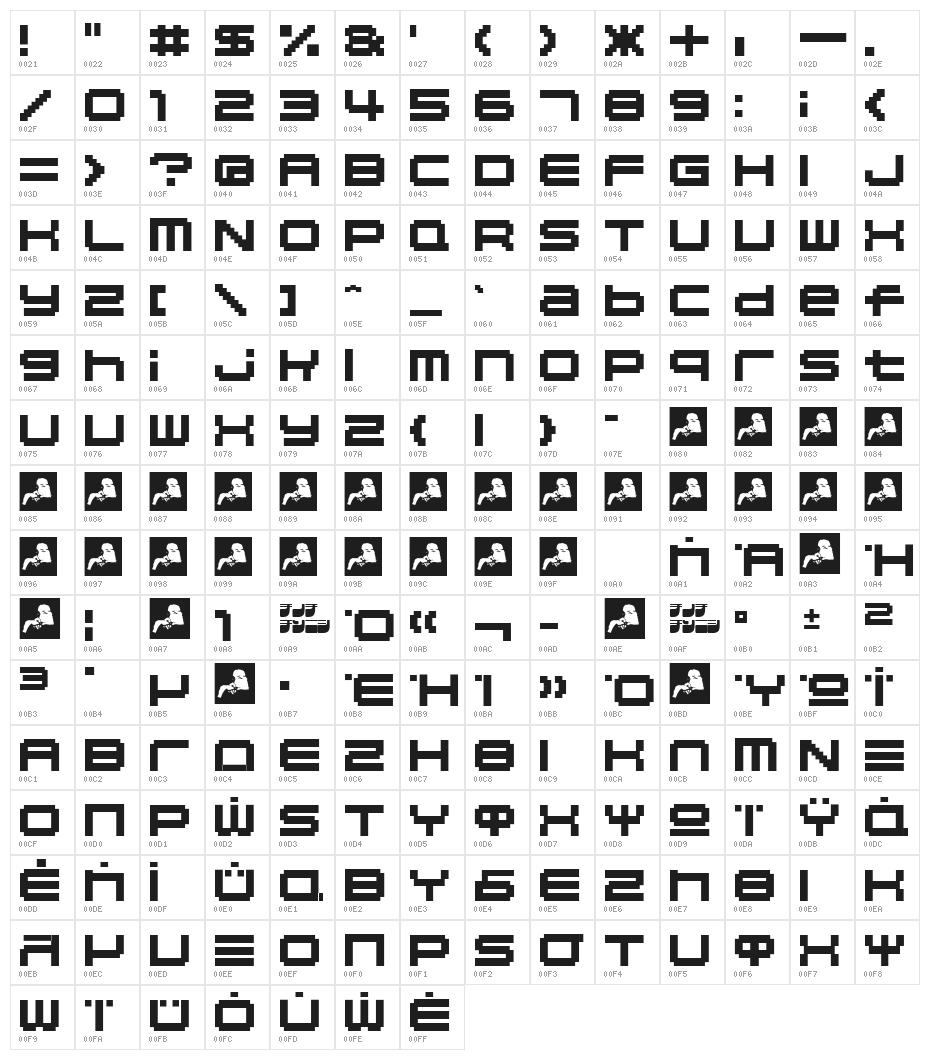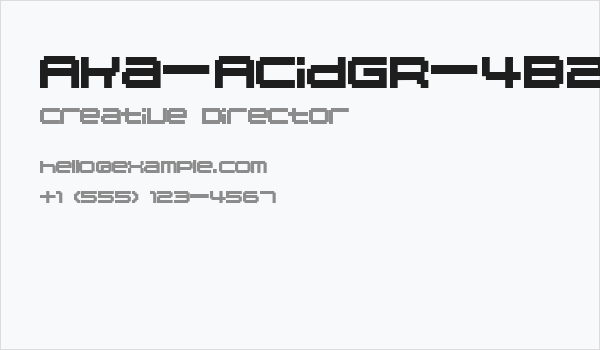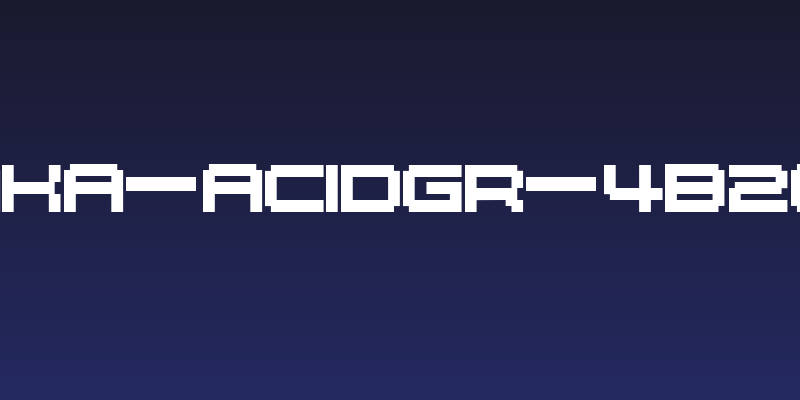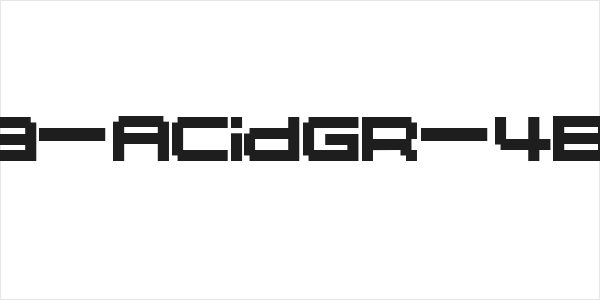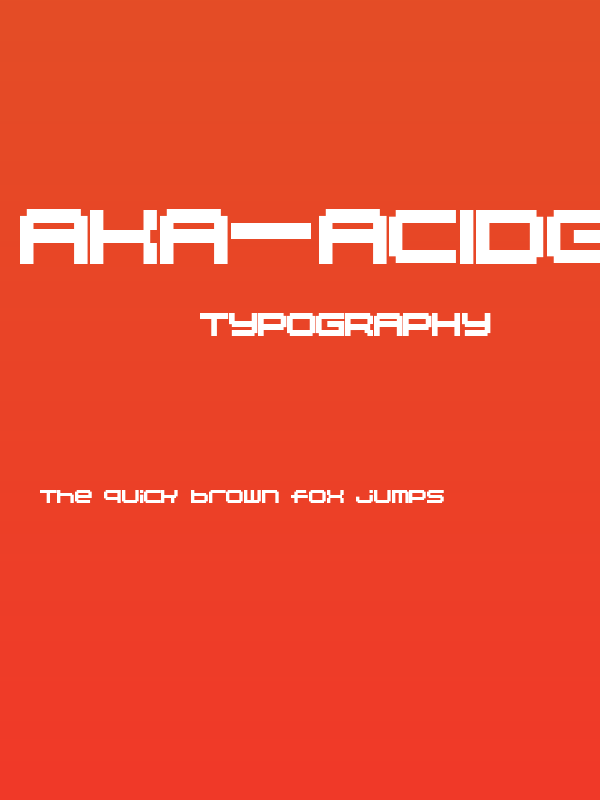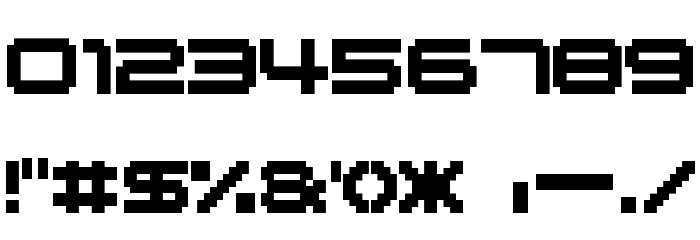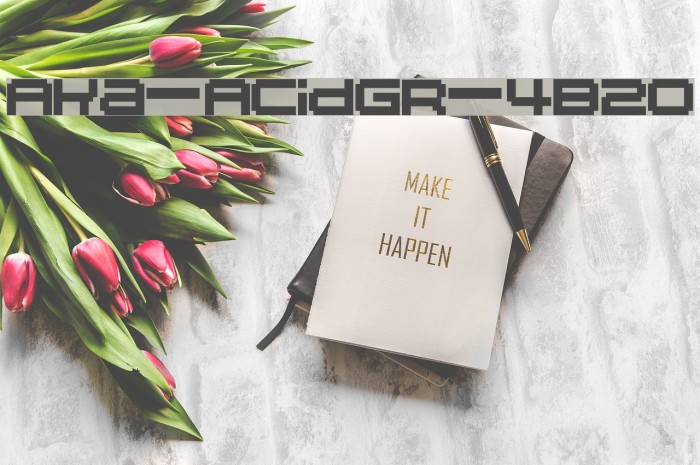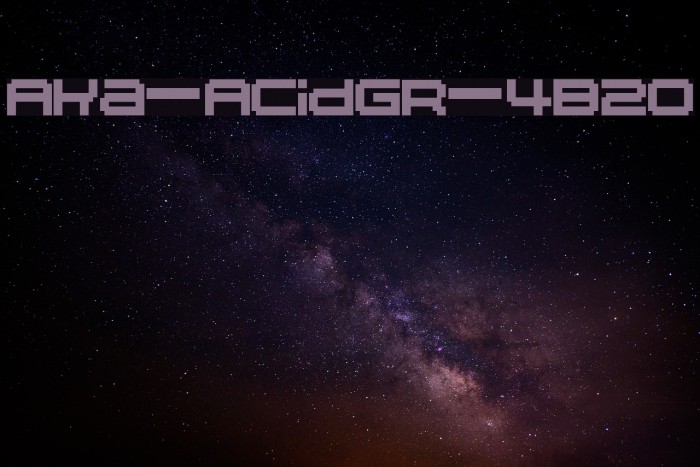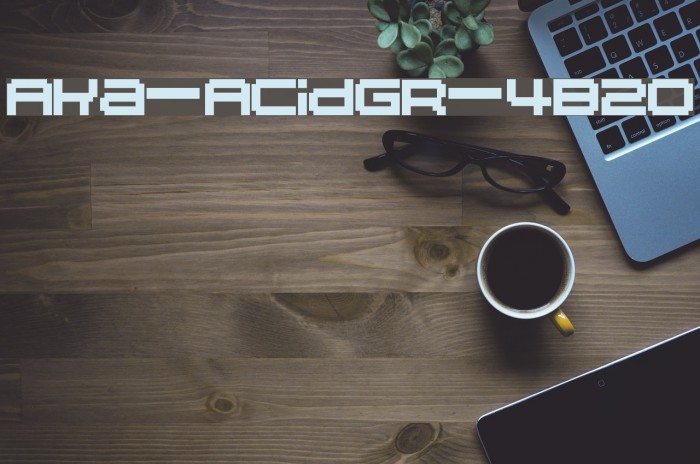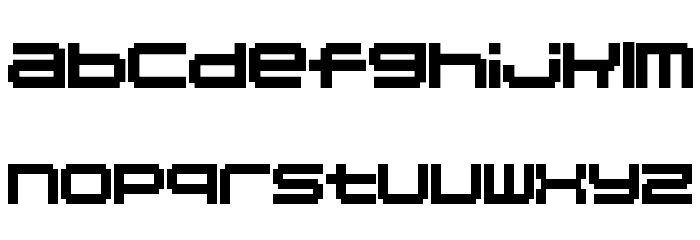
Aka-AcidGR-4B20 Font
Aka-AcidGR-4B20 Description
This font features a bold, geometric design with a distinctly digital aesthetic. The characters are constructed with sharp, angular lines and a blocky structure, reminiscent of early computer graphics or pixel art. The uppercase and lowercase letters maintain a consistent height, contributing to a uniform appearance. Numbers and special characters follow the same design principles, ensuring a cohesive look across all glyphs. The font's style is both modern and retro, making it suitable for projects that require a tech-savvy or futuristic feel.
| Overall Style | Modern, Retro |
| Use Case | Logos, Headlines, Digital Art |
| Proposed Projects | Ideal for video game graphics, tech-themed branding, digital art projects, and retro-futuristic designs. |